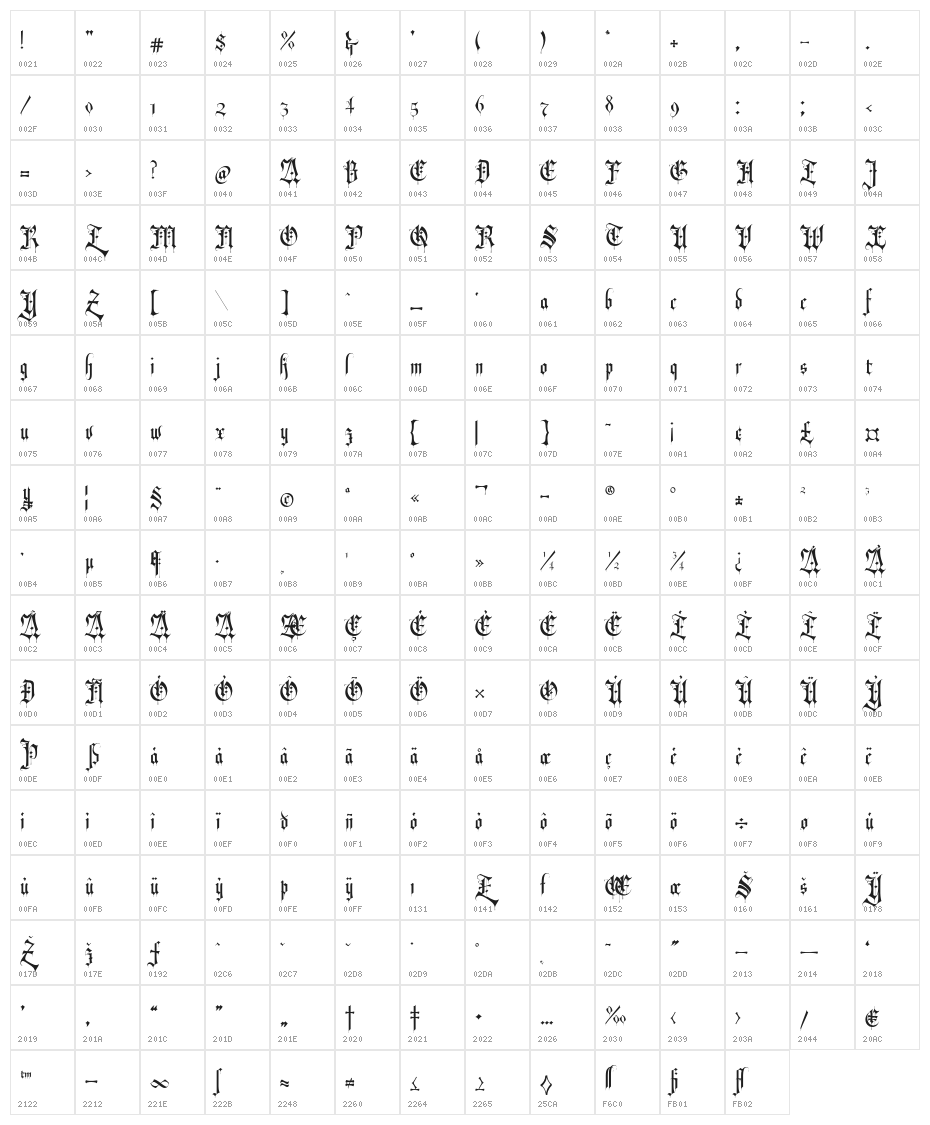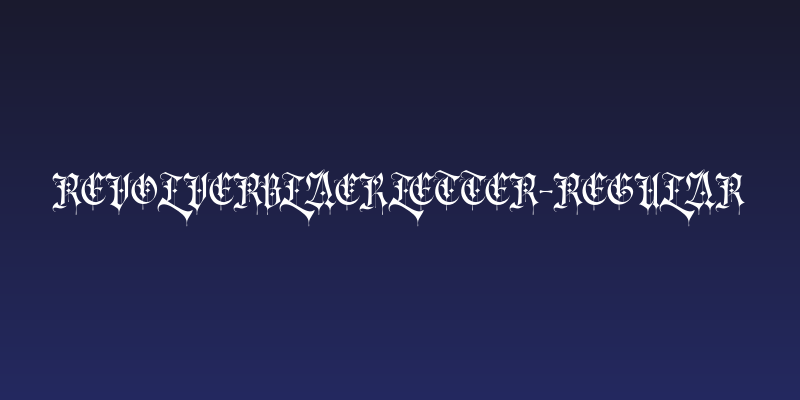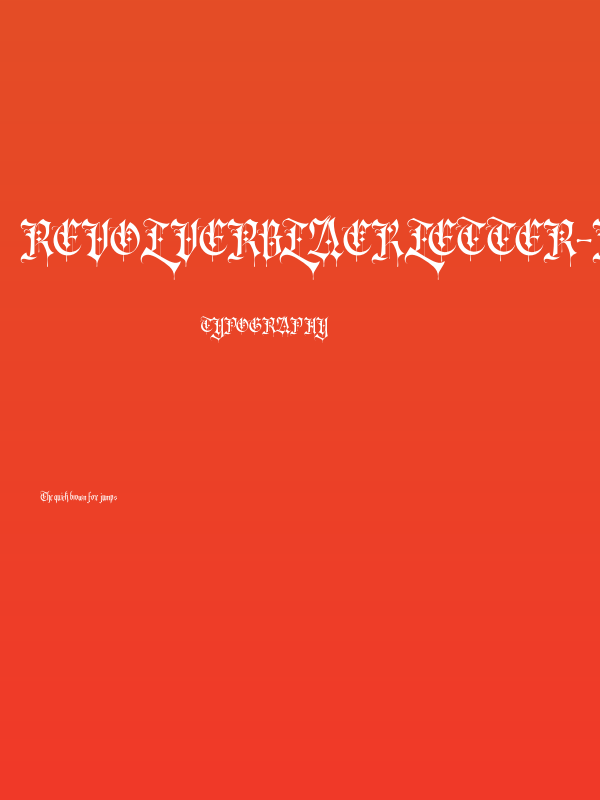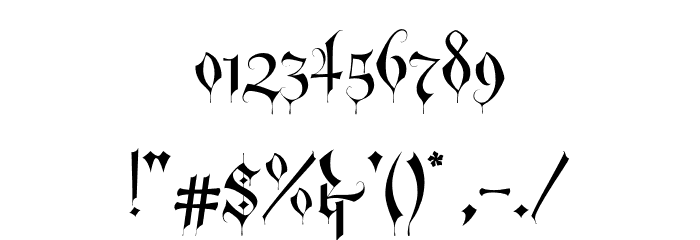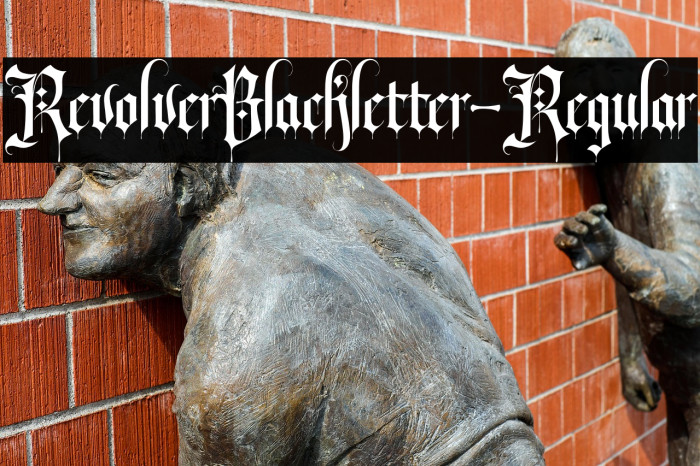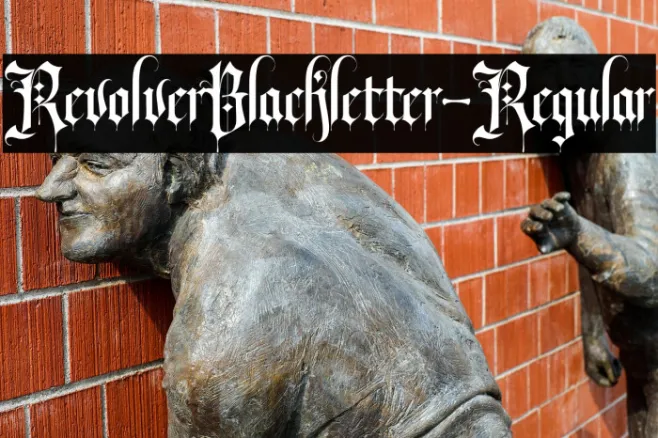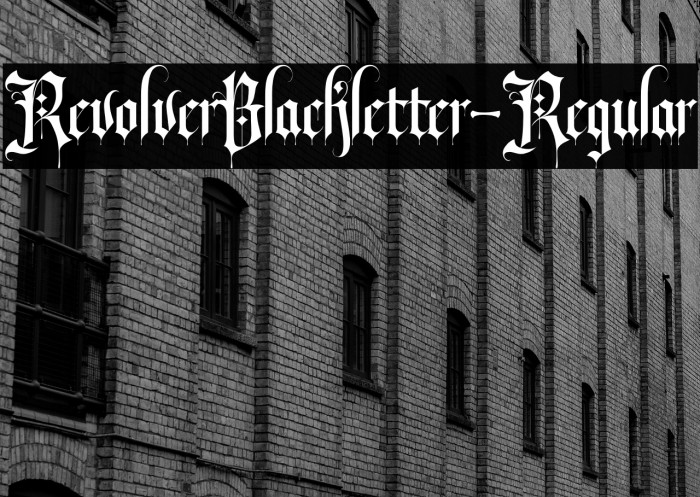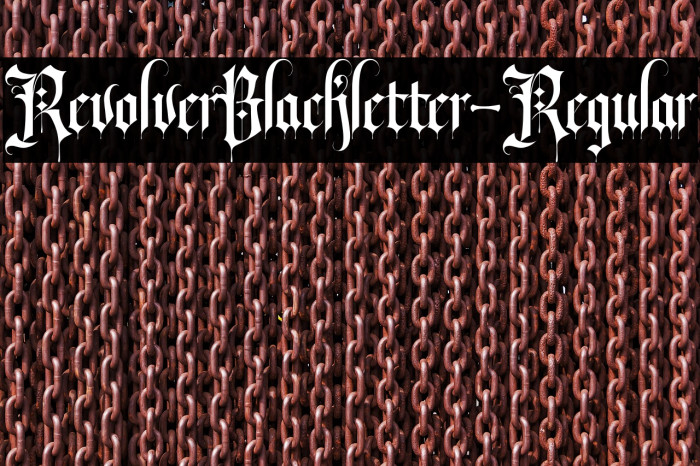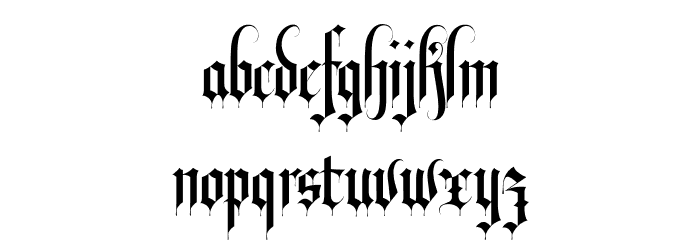
RevolverBlackletter-Regular Font
RevolverBlackletter-Regular Description
This font embodies the traditional and ornate characteristics of Blackletter typefaces, featuring sharp, angular lines and intricate detailing. The uppercase letters are particularly elaborate, with decorative elements that extend from the main strokes, giving a sense of historical elegance and formality. The lowercase letters maintain the same intricate style but are slightly more subdued, ensuring readability while preserving the overall aesthetic. The numerals and special characters are designed to match the ornate style, making them suitable for decorative purposes. This font is ideal for projects that require a touch of medieval or gothic flair.
| Font Family | Revolver Blackletter |
| Proposed Projects | Suitable for historical documents, wedding invitations, certificates, and branding that requires a gothic or medieval touch. |